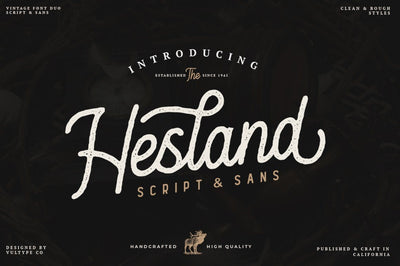
Hesland - Vintage Script Font
inspired by classic posters, Hesland is a simple, yet impactful handwritten font that celebrates all things vintage. Get inspired this one-of-a-kind typeface!
- Uppercase + Lowercase Letters
- Numbers + Punctuation
- Ligature Feature
- OpenType features
- Multilingual support